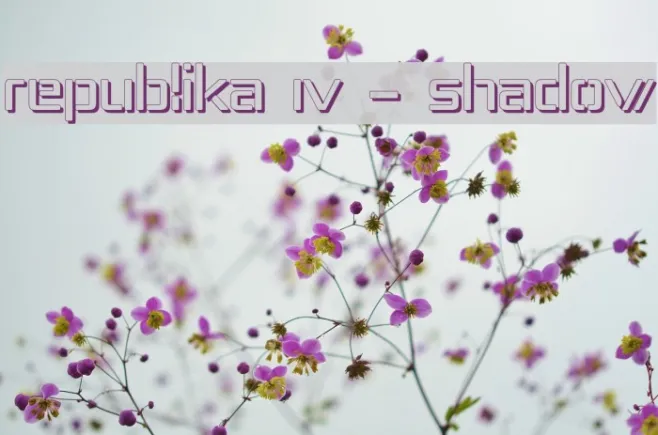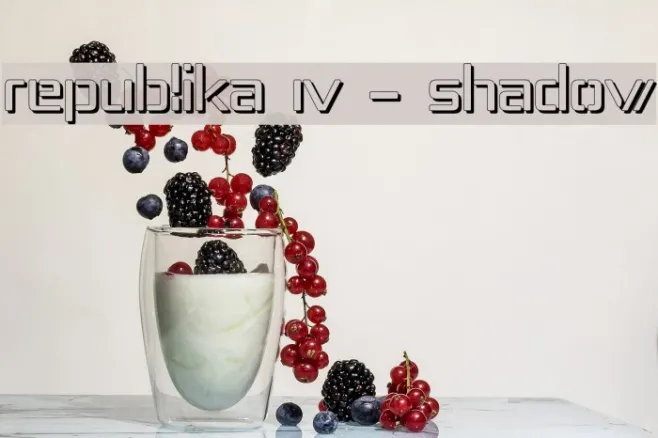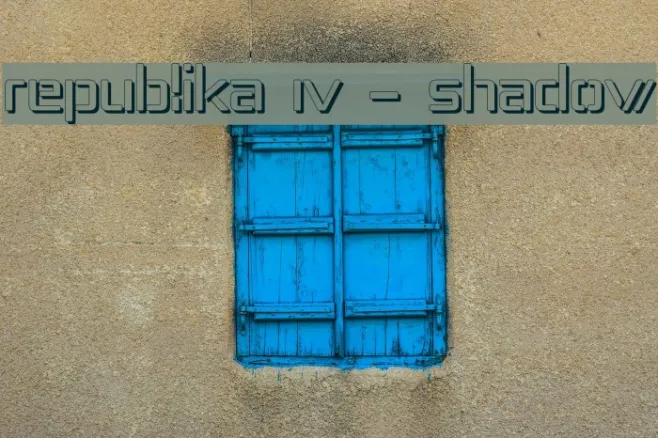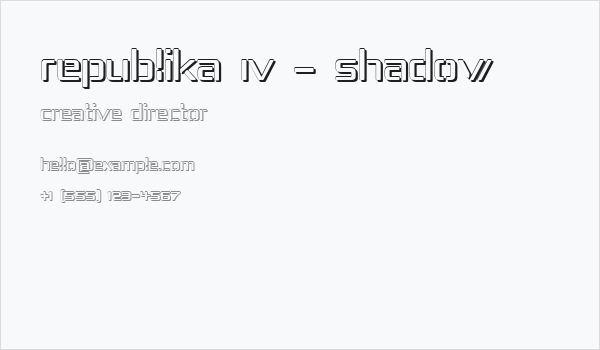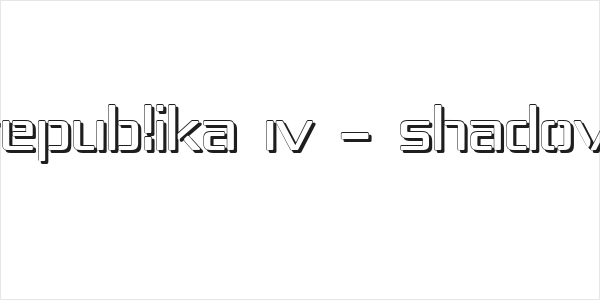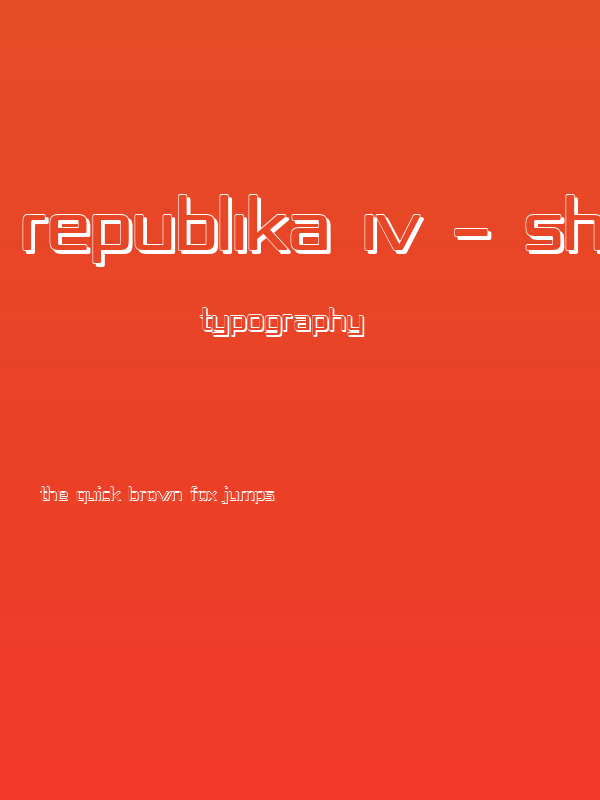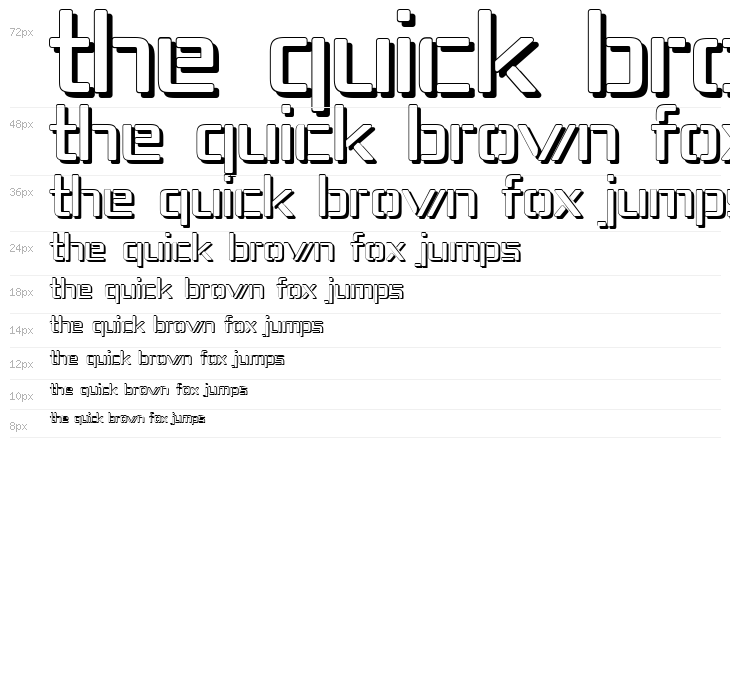
Republika IV - Shadow Font
Republika IV - Shadow Description
This font features a bold, futuristic design with a distinct shadow effect that gives it a three-dimensional appearance. The characters are geometric and structured, with clean lines and sharp angles. The uppercase and lowercase letters maintain a consistent style, while the numerals and special characters complement the overall aesthetic. The shadow effect adds depth, making it ideal for eye-catching designs.
Proposed ProjectsIdeal for sci-fi themed projects, video game titles, posters, and branding that requires a modern and dynamic look.